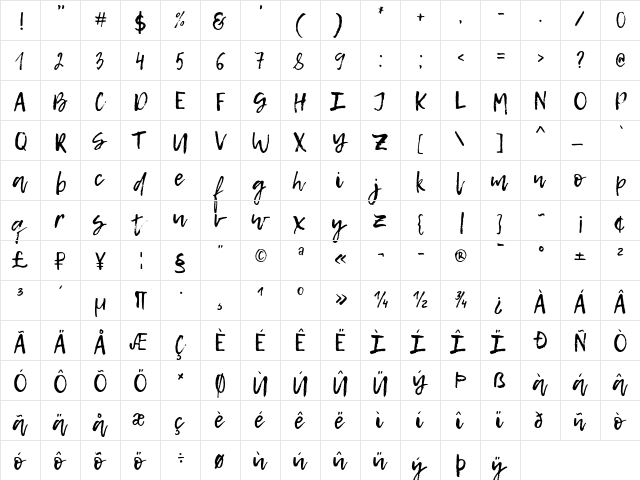
Lemon Tuesday Regular
| Foundry | Daria Kwon & Jovanny Lemonad |
| Designer | Daria Kwon & Jovanny Lemonad |
Design Context for Lemon Tuesday Typeface
Lemon Tuesday is a composed and adaptable typeface that performs quietly and consistently across a wide range of design contexts.